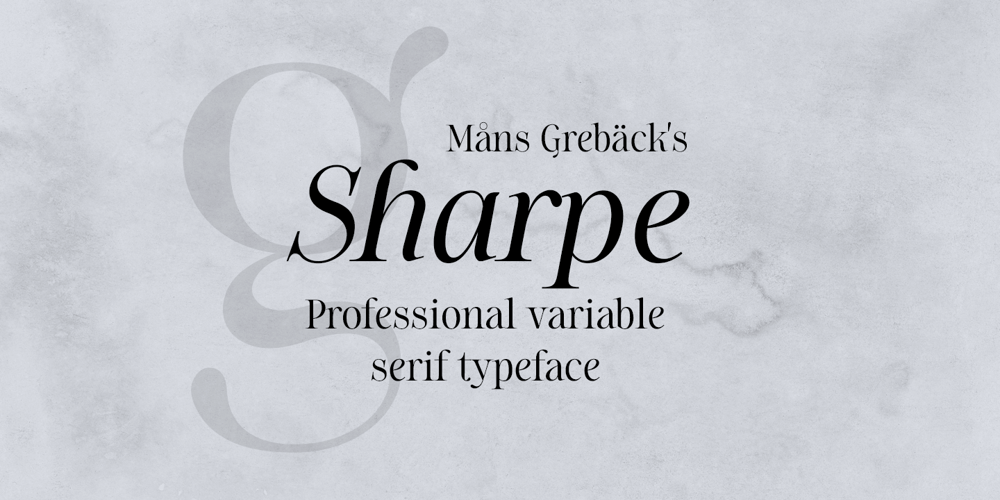
Sharpe Variable Font Family was designed by Måns Grebäck and published by Mans Greback. Sharpe Variable contains 16 styles and family package options. Sharpe Variable is a stylish serif typeface family. The original type was drawn between 2018 and 2019, and the variable font and its updated styles was created in 2020. It is clear, sharp and has brave, lively letter forms but with a conservative backbone. This font is provided as a Variable Font. It is only one font file, but this file contains multiple styles. Use the sliders in Illustrator, Photoshop or InDesign to manually set any weight and width. This gives you not only the 15 predefined styles, but instead more than half a million steps to customize the type to the exact look your project requires. Each style contains ligatures and support for a wide range of languages. More info about Variable Fonts: https://mansgreback.com/s/About_Variable_Fonts.pdf